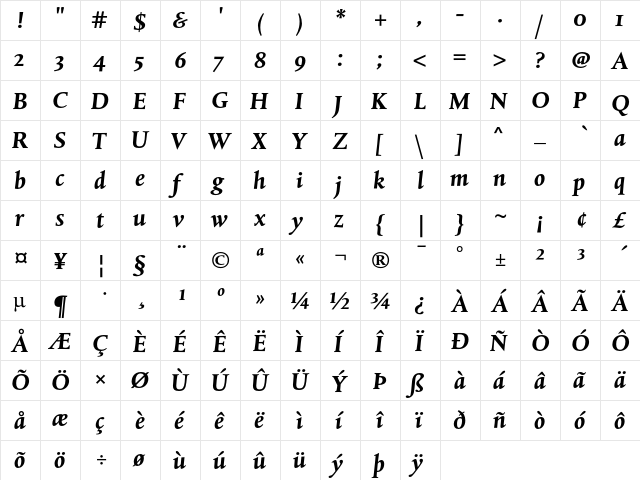
DTL Albertina ST Bold Italic
Design Context for DTL Albertina Typeface
DTL Albertina is a composed and adaptable typeface that performs quietly and consistently across a wide range of design contexts. The dynamic lean of this cut emphasises speed and emphasis in any layout. Its bold stroke weight gives it real presence on the page.
Pro Tip: Use DTL Albertina for emphasis, pull quotes, and subheadings where its slanted energy can add rhythm to the layout.